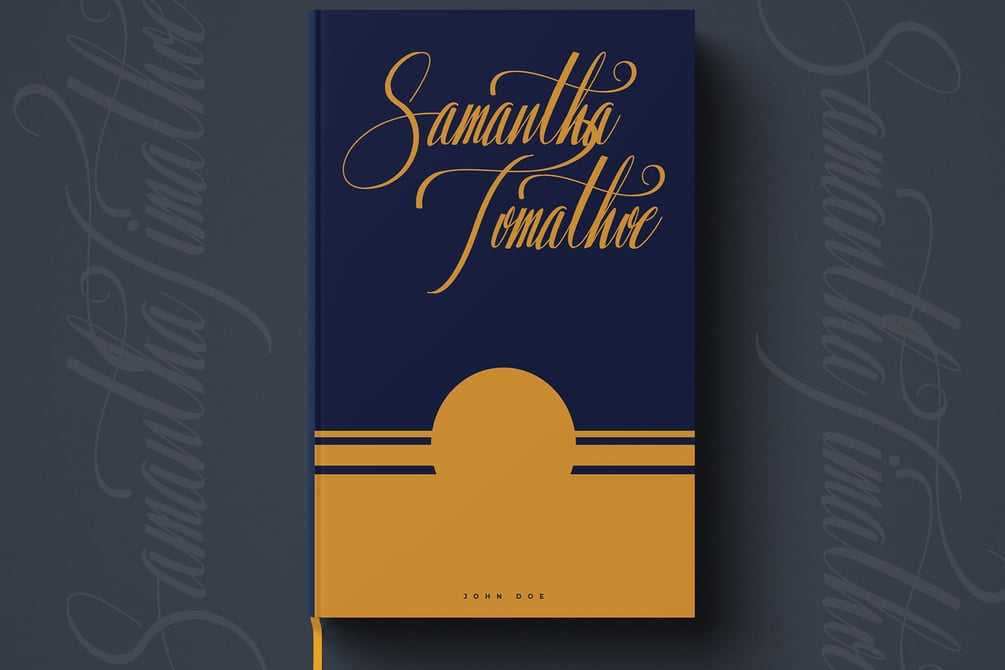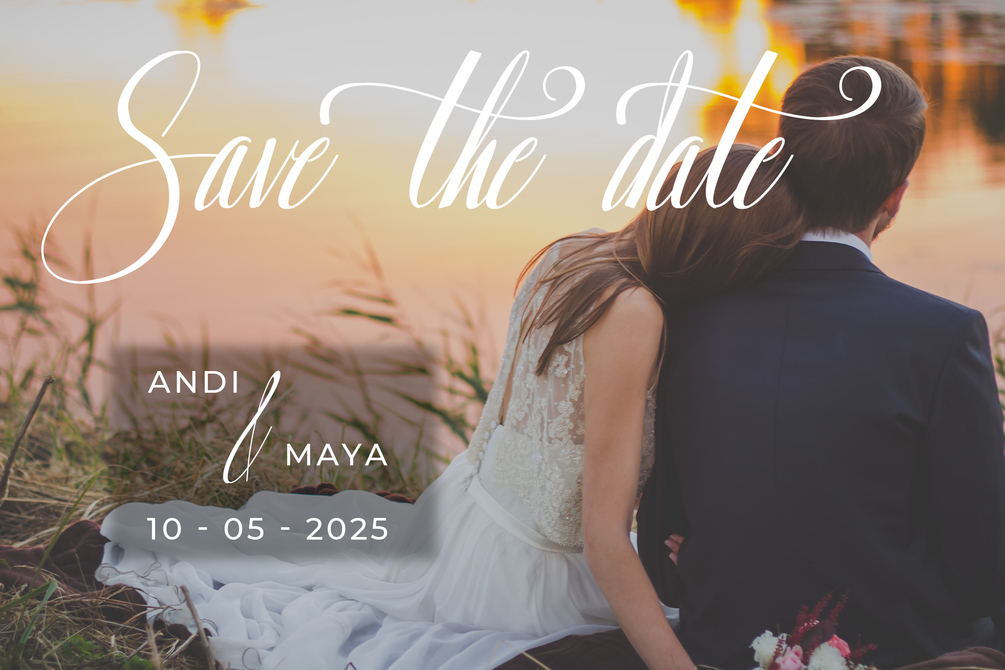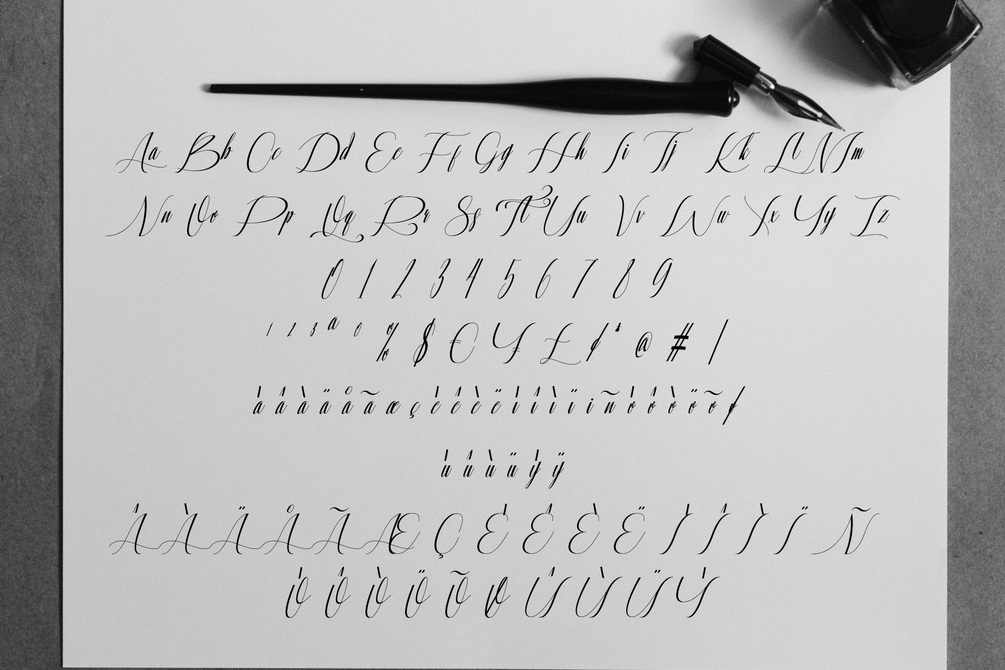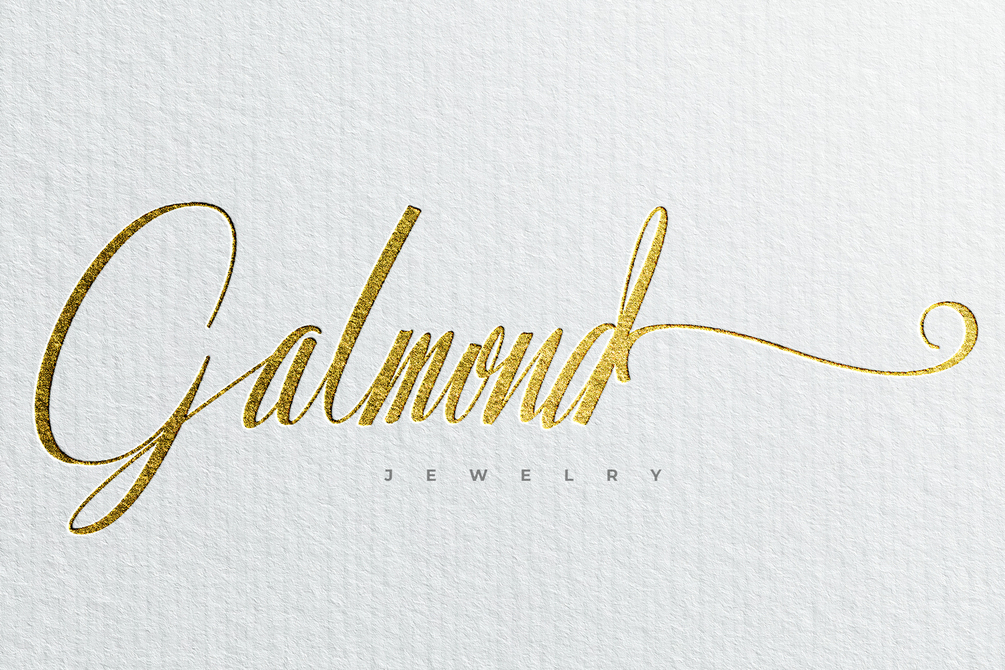
Komplothan Font
Komplothan is a font with a stylish calligraphy style. suitable for social media, branding, logotype, products, advertisement, and so on. contains standard English letters, numbers, punctuation, and several accents that support multilingualism.